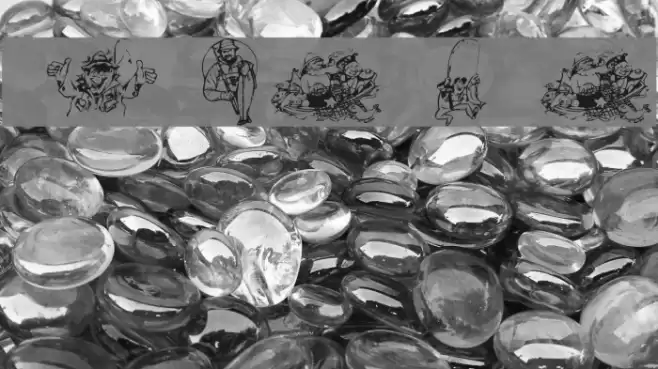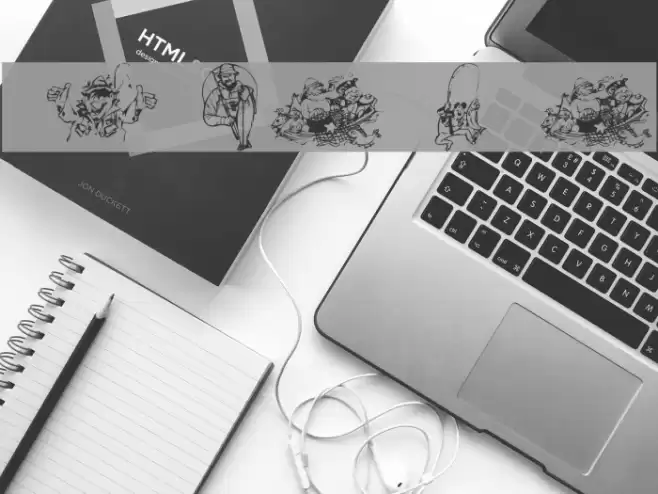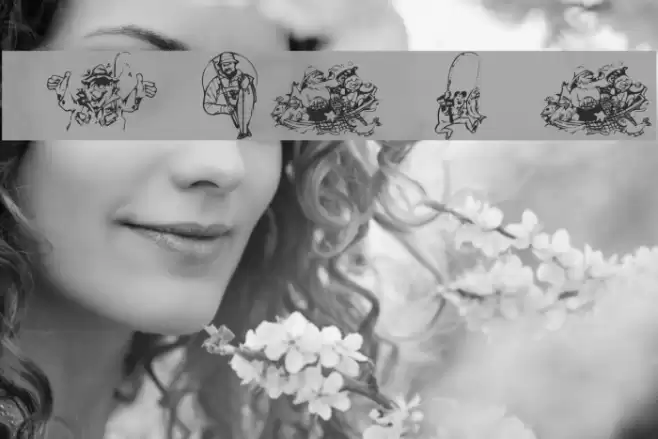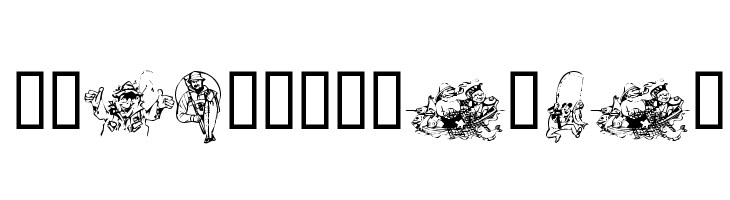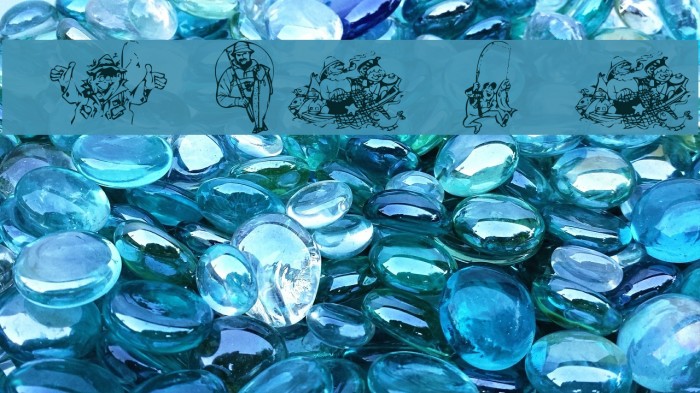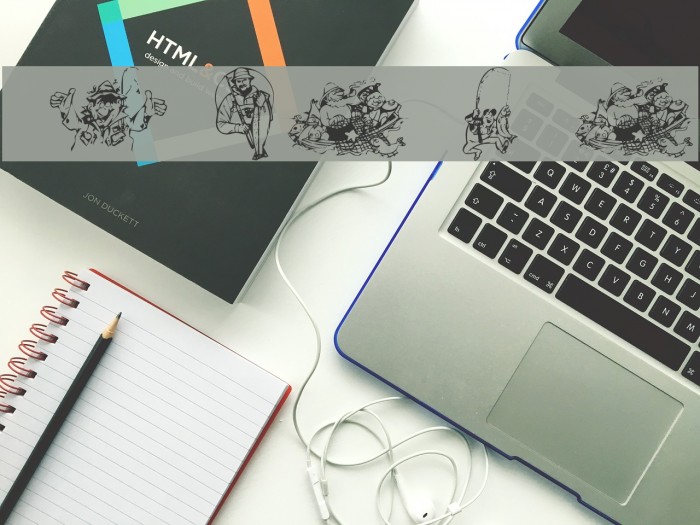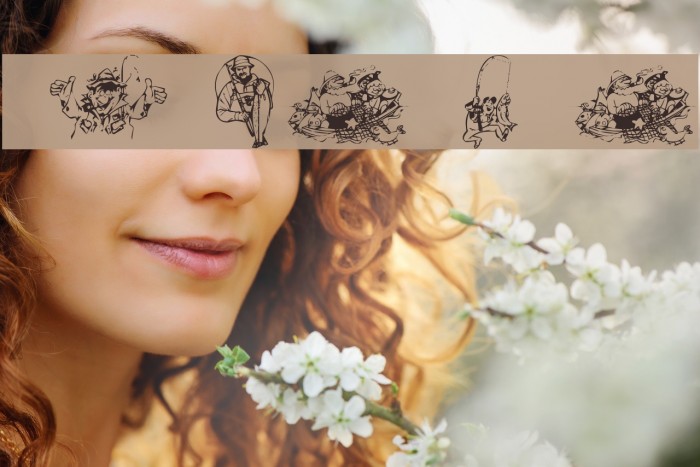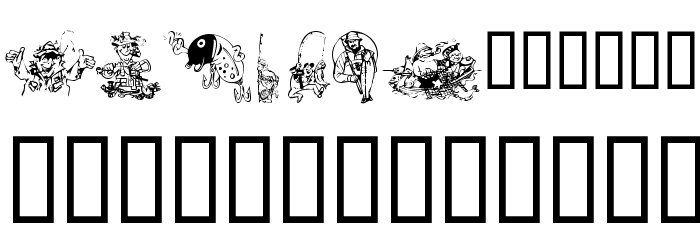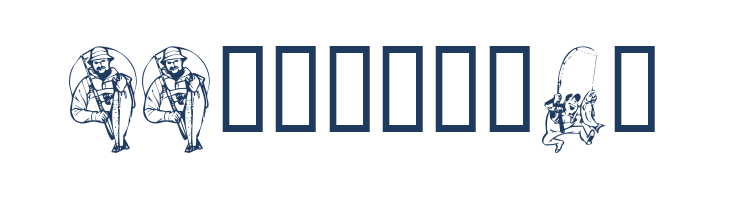
KR A Fishing We Go Font
KR A Fishing We Go Description
This is a decorative font featuring playful and whimsical fishing-themed illustrations. Each character is represented by a unique drawing, capturing various fishing scenes and characters, such as fishermen, fish, and fishing gear. The style is cartoonish and light-hearted, making it ideal for projects that require a fun and engaging visual element. The font does not follow traditional letterforms, instead using detailed illustrations to convey each character.
A decorative font with fishing-themed illustrations for each character from Dingbats fonts.
- Proposed Projects: Ideal for children's books, fishing event posters, themed party invitations, and educational materials about fishing.
- Overall Style: Playful and Cartoonish
- Use Case: Logos, Posters, Invitations